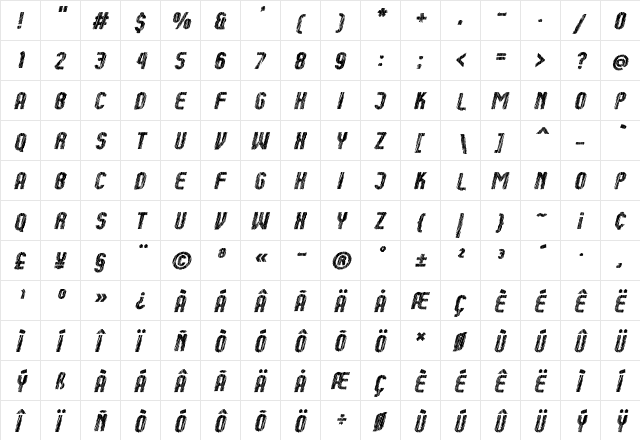
Kumba Sketch Bold Italic
| Foundry | Audry Kitoko Makelele |
| Designer | Audry Kitoko Makelele |
Design Context for Kumba Typeface
Kumba takes a measured approach to typography — its balanced proportions and neutral character make it a reliable workhorse for both digital and print work. The dynamic lean of this cut emphasises speed and emphasis in any layout. Its bold stroke weight gives it real presence on the page.